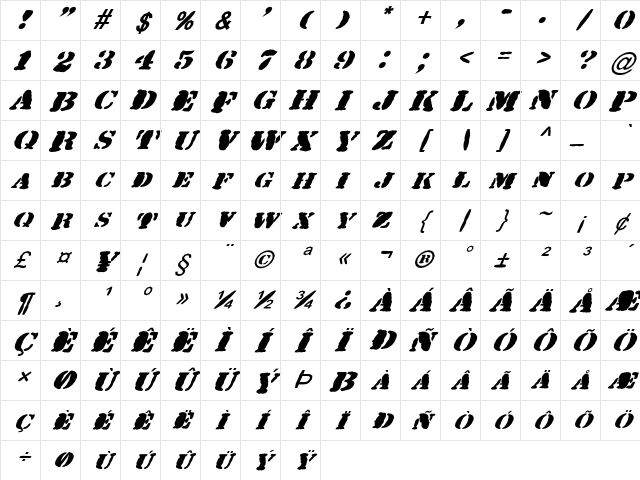
Complete FZ UNIQUE 25 MANGLED ITALIC Normal glyph index. Displaying only characters natively supported by FZ UNIQUE 25 MANGLED ITALIC Normal font.
FZ UNIQUE 25 MANGLED ITALIC is a composed and adaptable typeface that performs quietly and consistently across a wide range of design contexts. The slanted form adds forward momentum and visual energy.